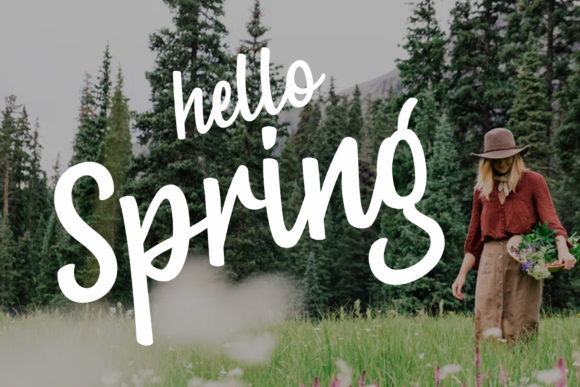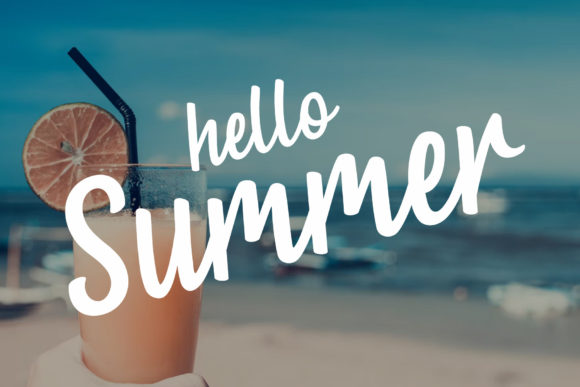
Hangout Font
db-ku.com - Script & Handwritten -- Hangout is a handwritten script font. It has an authentic modern handwritten look which makes it perfect for digital branding and design. Use this font for logos design, social media, wedding decor, invitations, websites, blogs, Instagram, business cards, branding, and more!